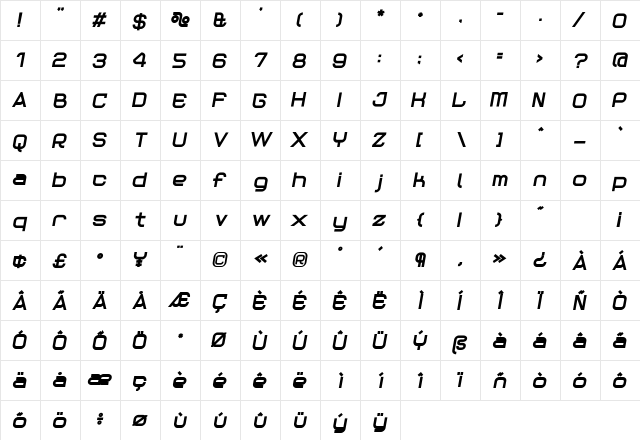
Reaction Ultra Italic
Design Context for Reaction Typeface
Reaction offers clean, dependable letterforms without strong stylistic allegiance, making it a practical choice for designers who need flexibility. The slanted form adds forward momentum and visual energy.
Pro Tip: Try Reaction for annotation and caption copy alongside an upright companion — the contrast in angle creates a dynamic but ordered typographic system.